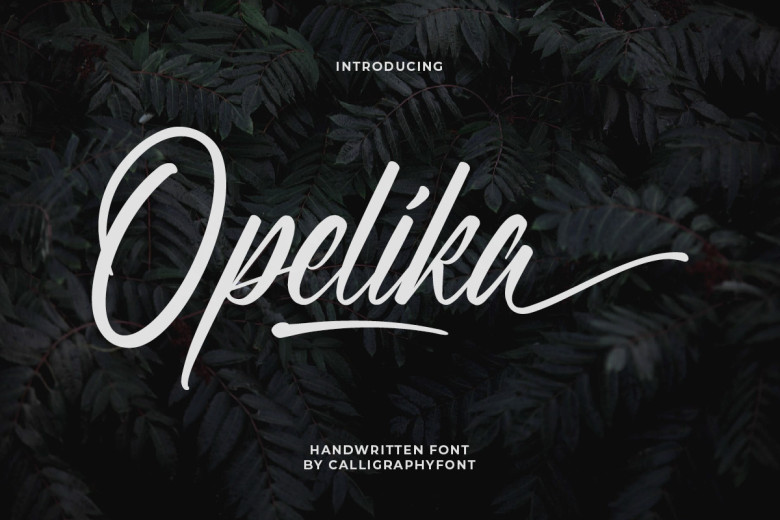
Opelika Font
Opelika is a casual script font featuring charming, playful characters that seem to dance along the baseline. This font is PUA encoded which means you can access all of the amazing glyphs and ligatures with ease!
Opelika Handwritten Script Font